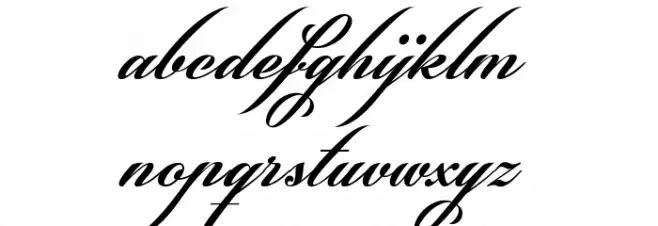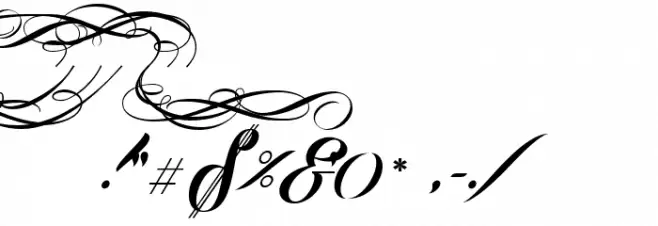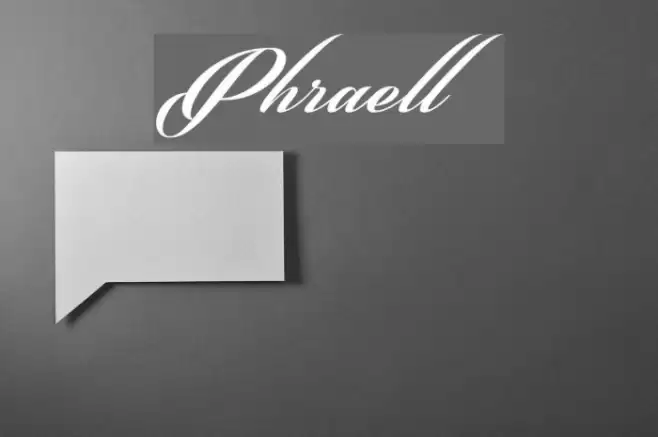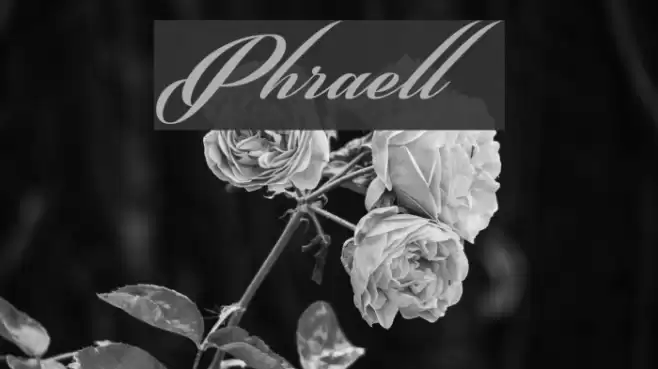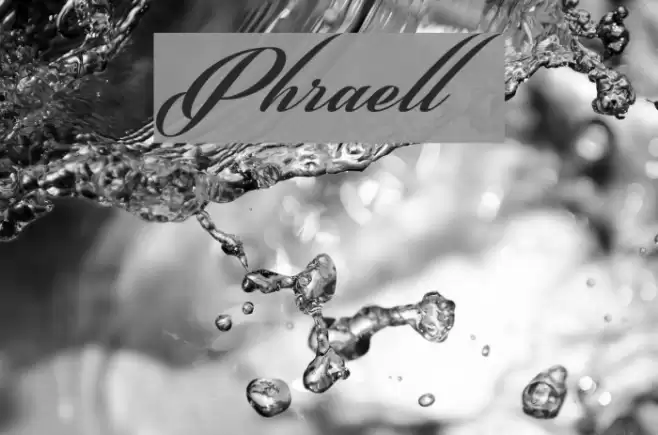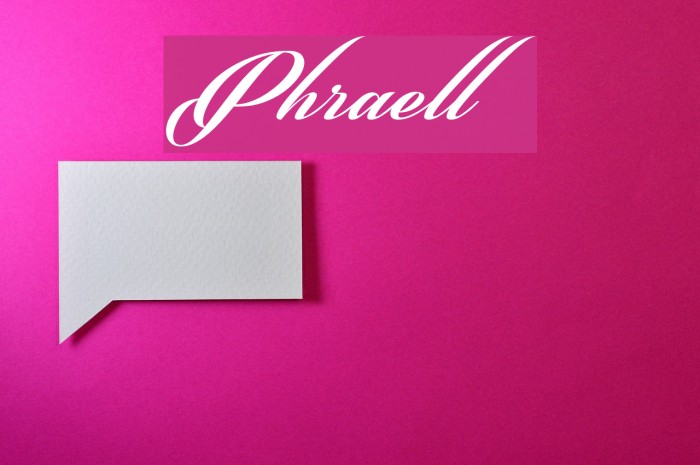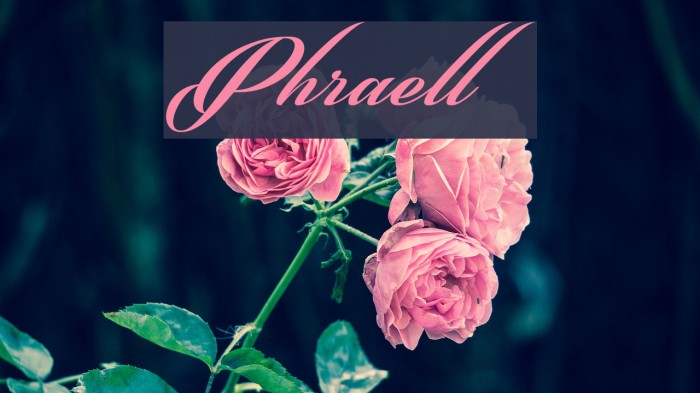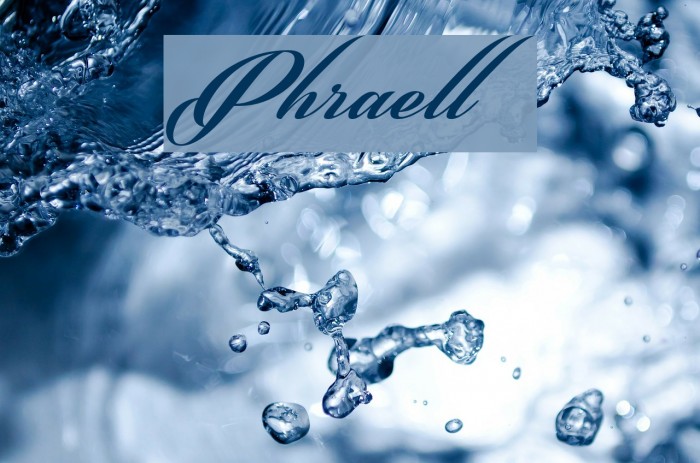
Phraell
This elegant script font features flowing, cursive letterforms with intricate swashes and flourishes. The uppercase letters are ornate, with dramatic loops and curves, while the lowercase letters maintain a graceful and fluid style. The font exudes sophistication and is reminiscent of traditional calligraphy, making it ideal for formal invitations and decorative purposes. The numerals and special characters are equally stylized, ensuring a cohesive look across all text elements. The overall design is both classic and artistic, capturing the essence of timeless elegance.
An elegant script font with flowing, cursive letterforms and intricate swashes.
- Proposed Projects: Ideal for wedding invitations, formal event programs, elegant branding, and decorative signage.
- Category: Script
- Contrast: High
- Overall Style: Classic
- Use Case: Headlines, Logos, Invitations